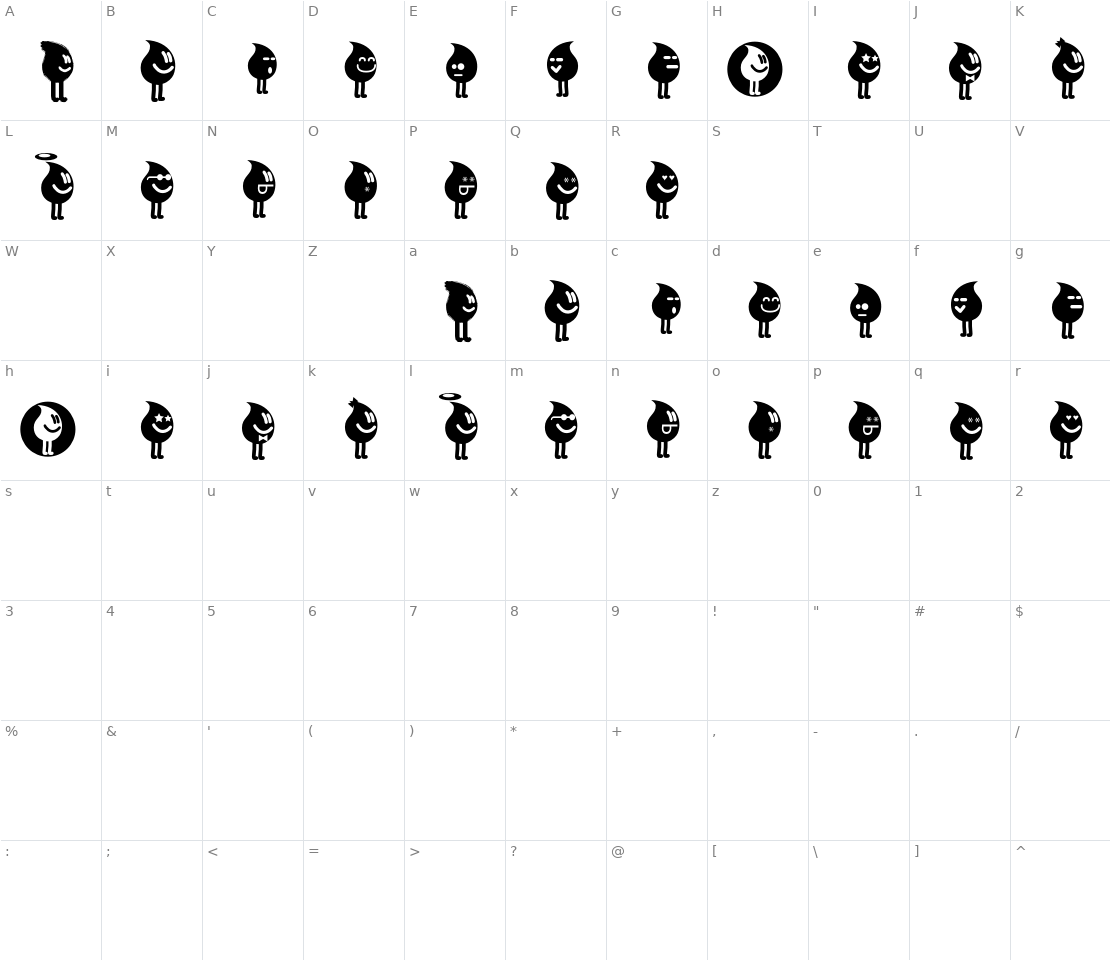
Tearz
by Steven Resch
Tearz is a dingbat font by Steven Resch made up of cartoon teardrop characters and expressive little faces, each with its own personality. The illustrations lean cute and playful, closer to emoji sticker sheets than anything serious. Useful for adding hand-drawn emotional accents to children's projects, greeting cards, or social media graphics.